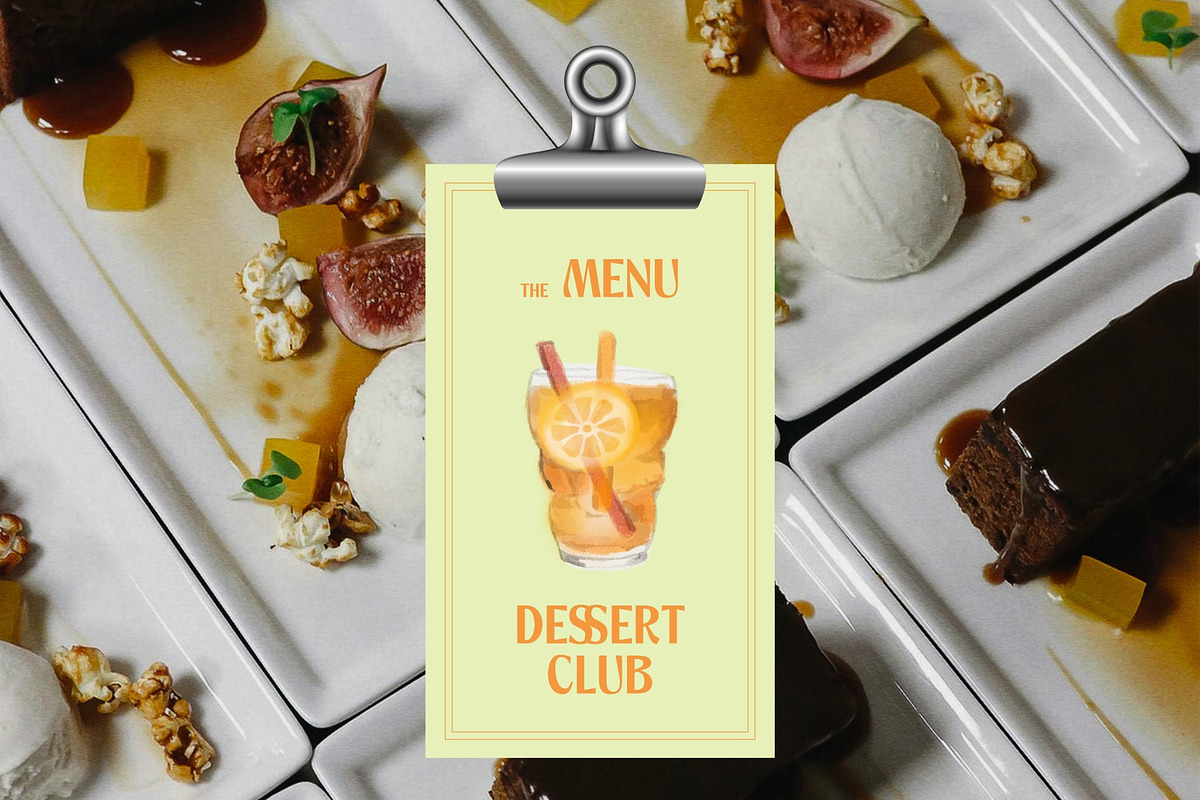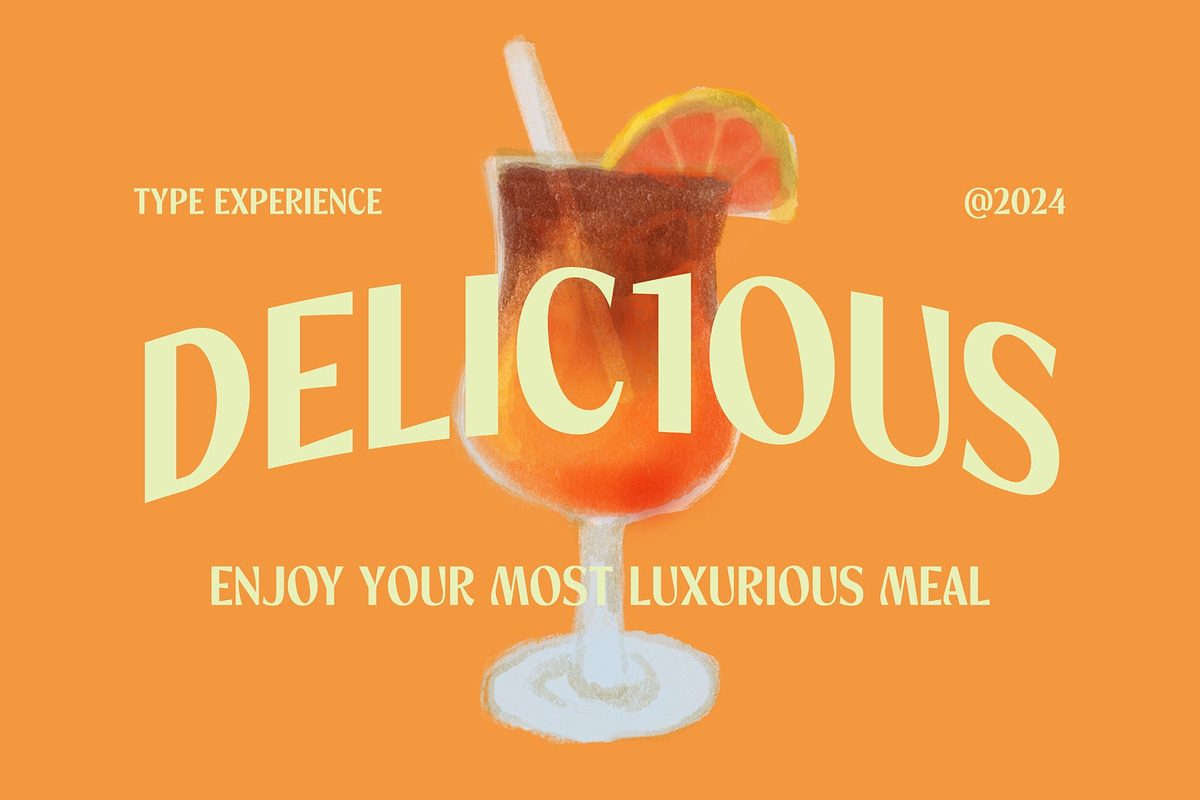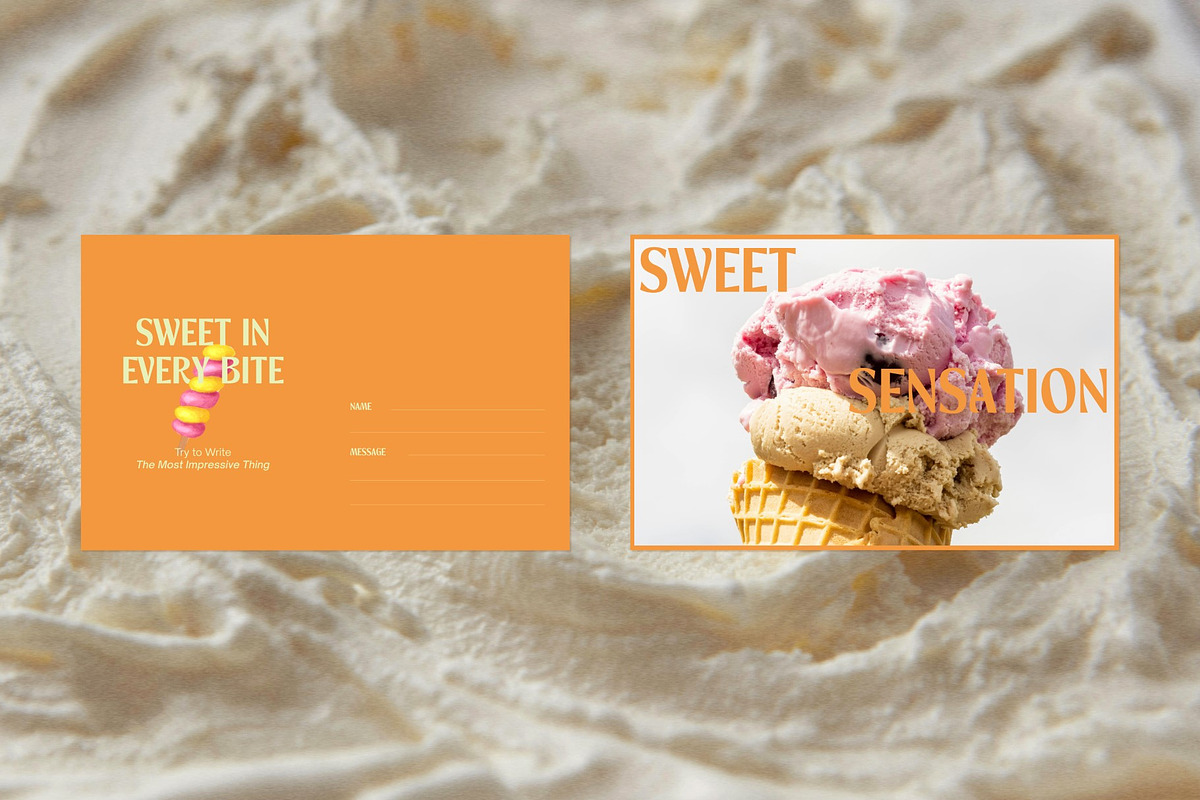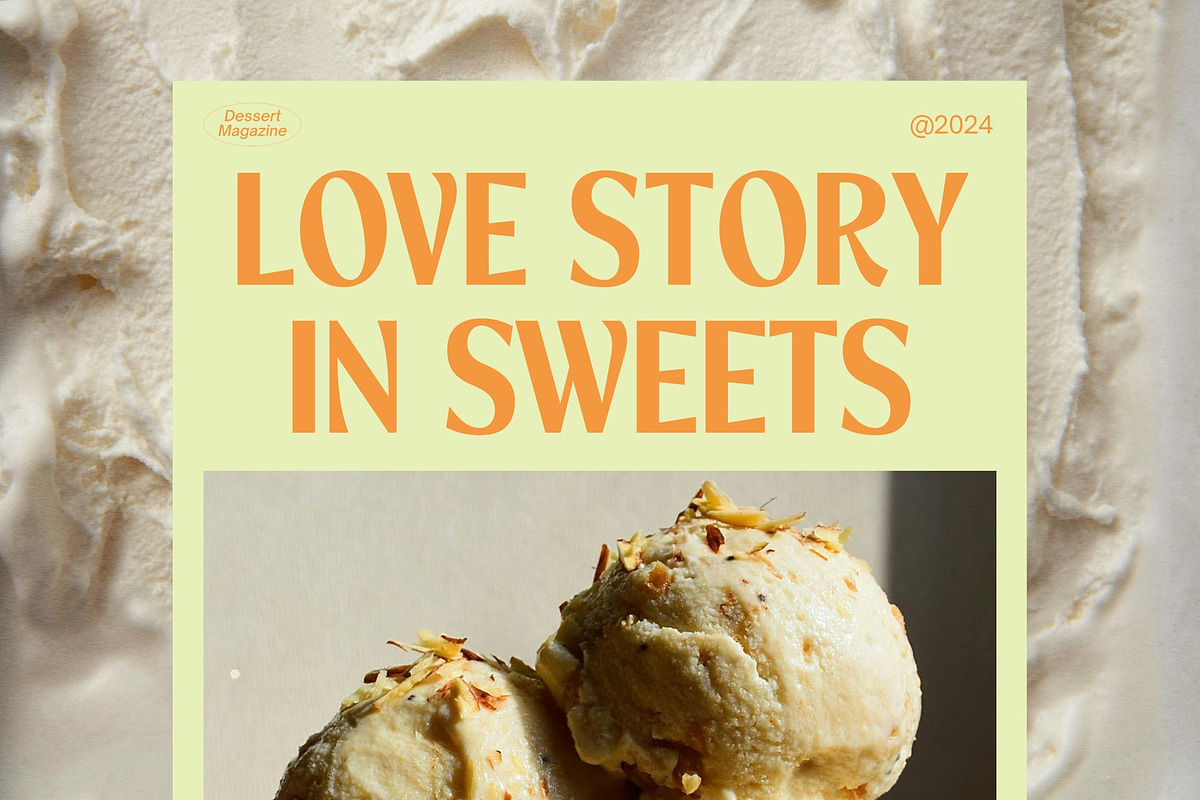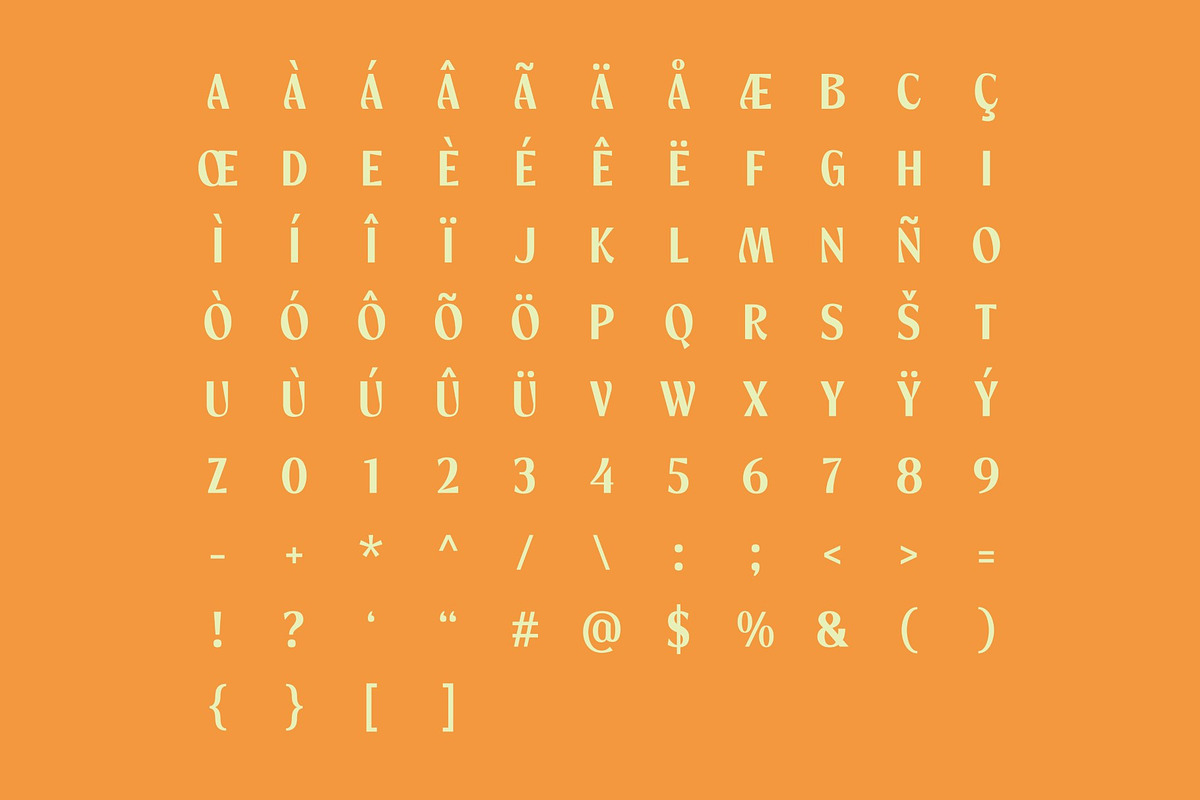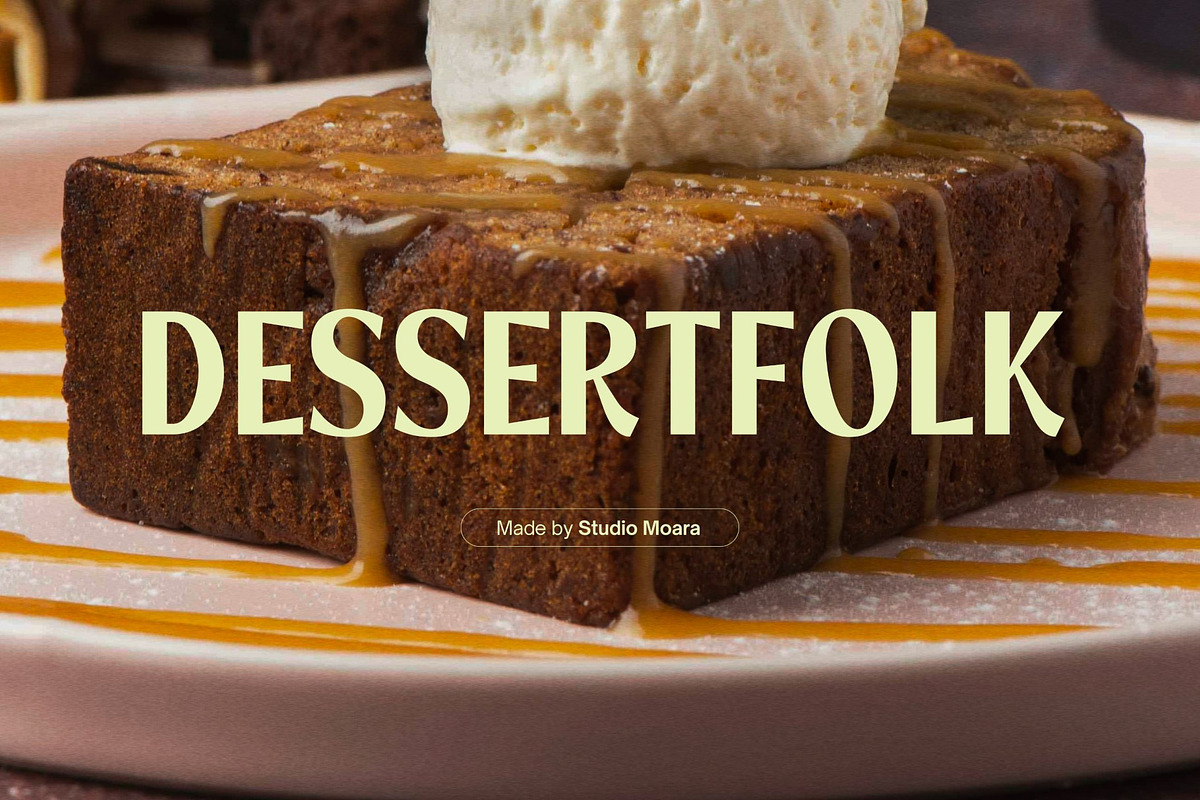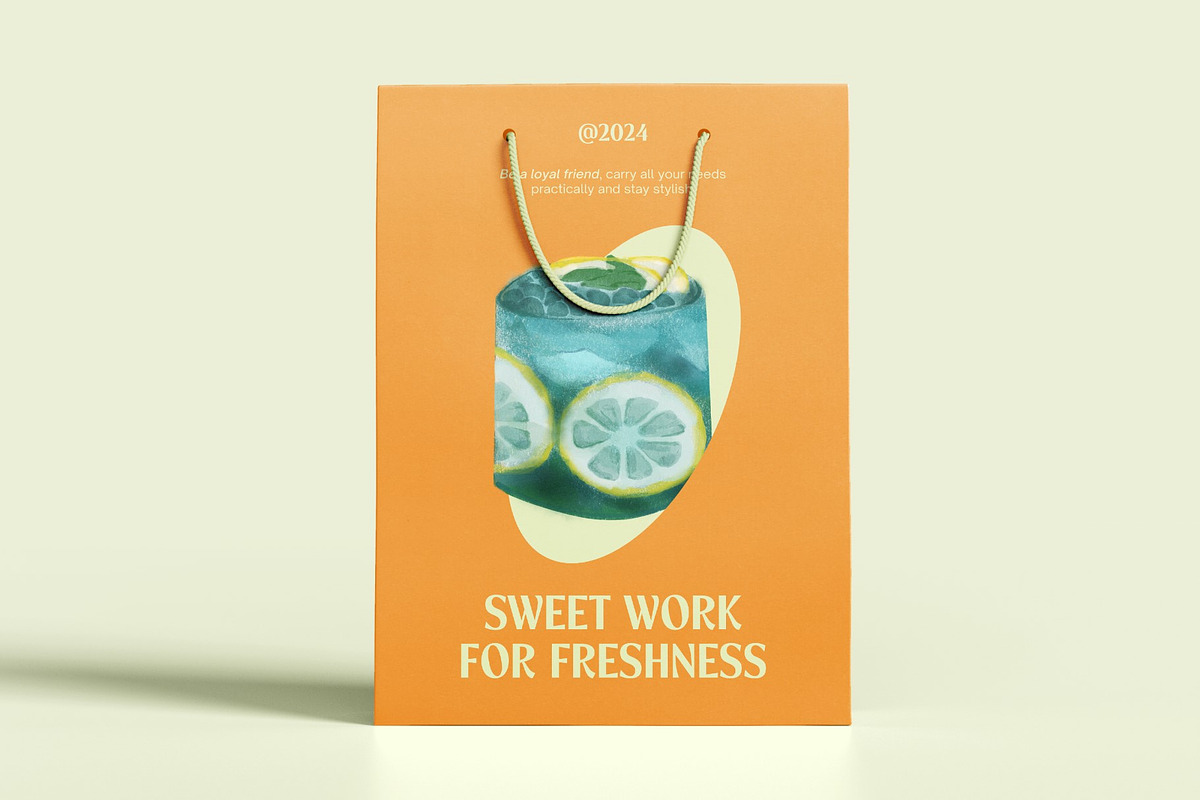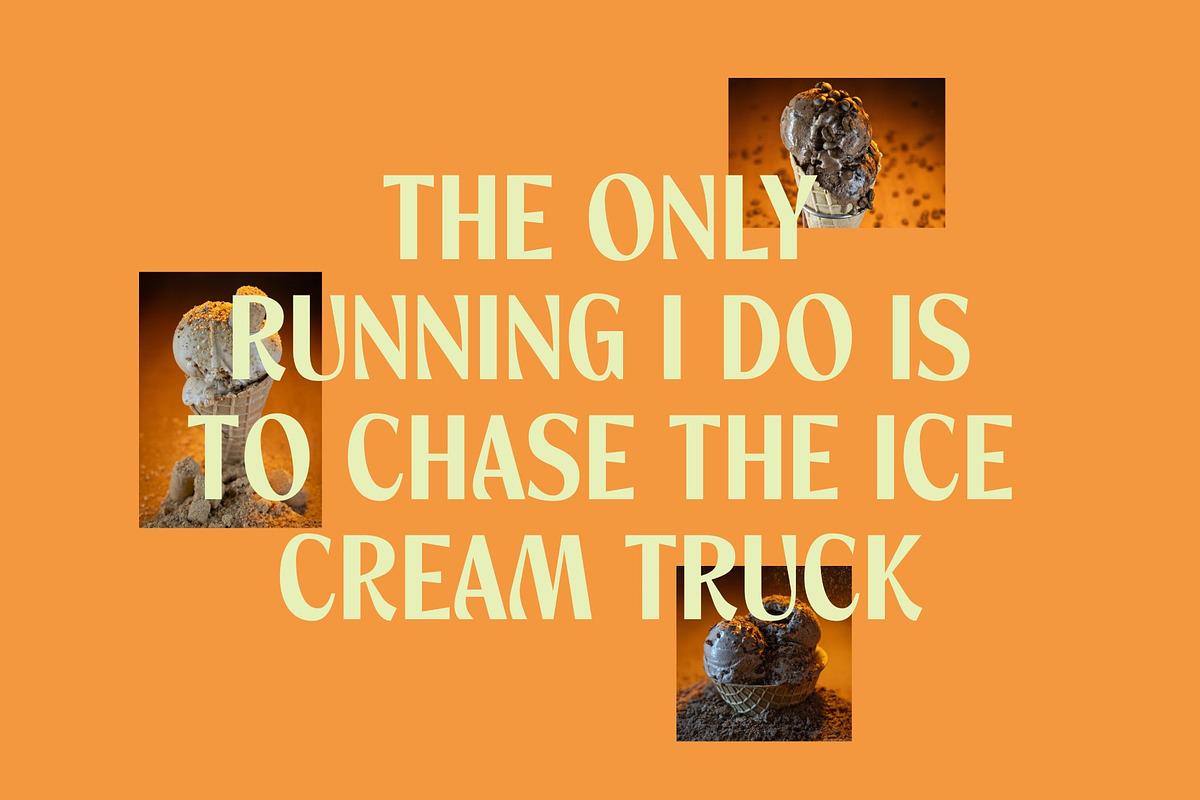
Desertfolk - Boho Aesthetic Display
Discover Desertfolk, the Boho Aesthetic Display Font that captures the free-spirited essence of the desert. With its unique and stylish letterforms, Desertfolk brings a touch of bohemian charm to your designs. Perfect for branding, posters, and creative projects, this font exudes a laid-back yet sophisticated vibe. Embrace the warmth and beauty of the desert with Desertfolk, and let your creations reflect a harmonious blend of elegance and artistic flair. Elevate your work with this captivating, boho-inspired typeface.